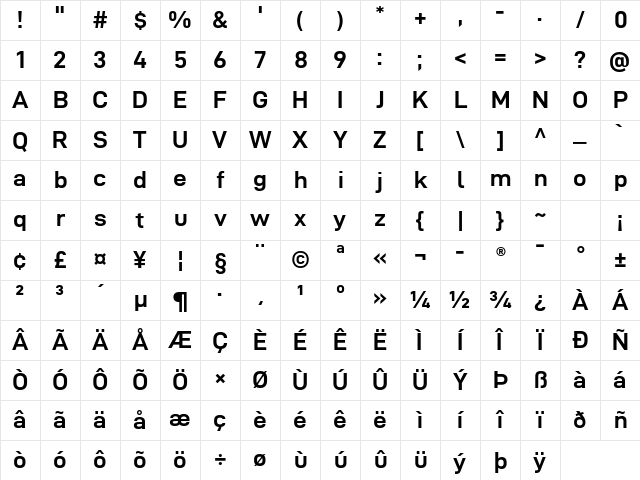
Complete D-DIN Exp DINExp-Bold glyph index. Displaying only characters natively supported by D-DIN Exp DINExp-Bold font.
D-DIN Exp is a composed and adaptable typeface that performs quietly and consistently across a wide range of design contexts. Its bold stroke weight gives it real presence on the page.